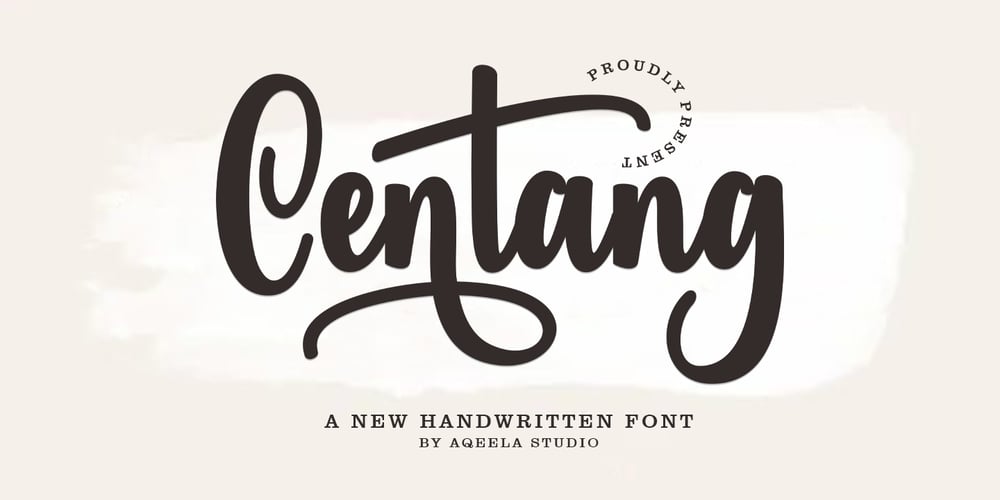
Centang Font Family was designed by Muhammad Nasir and published by Aqeela Studio. Centang contains 1 styles and family package options. Centang is a trendy handwritten font with a contemporary atmosphere and impeccable form, inspired by timeless classic calligraphy. It will add elegance and class to any of your design projects.